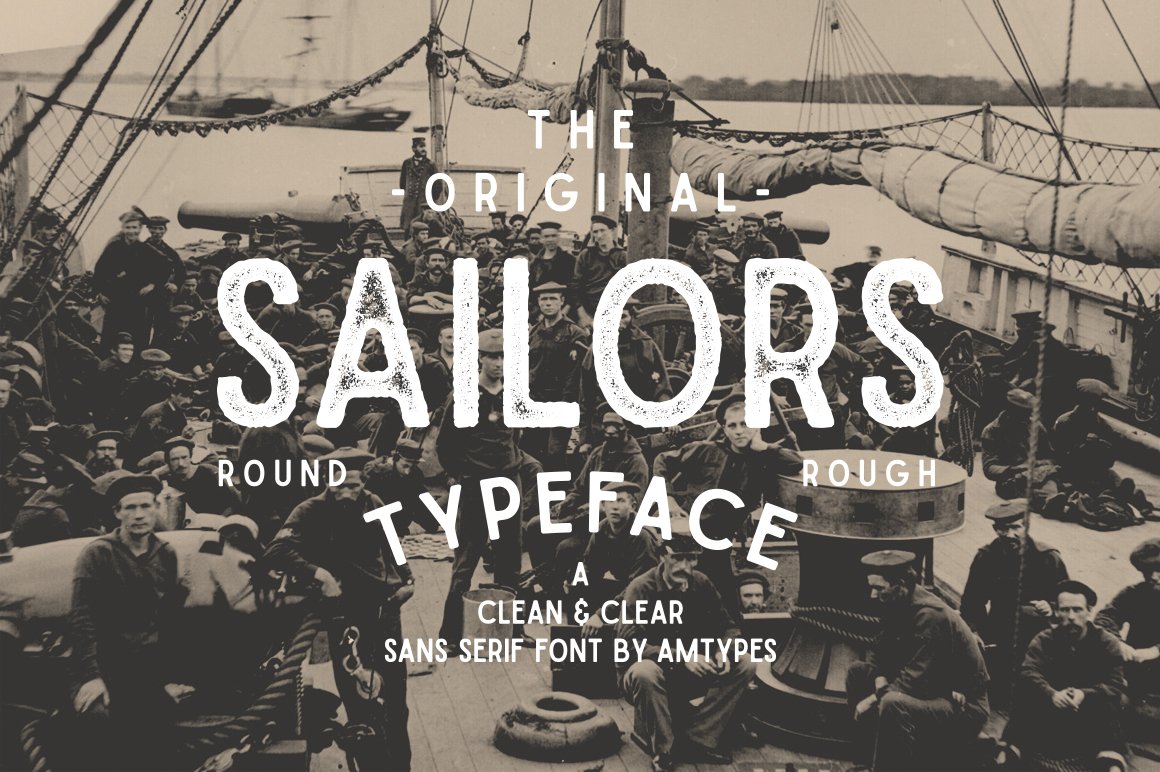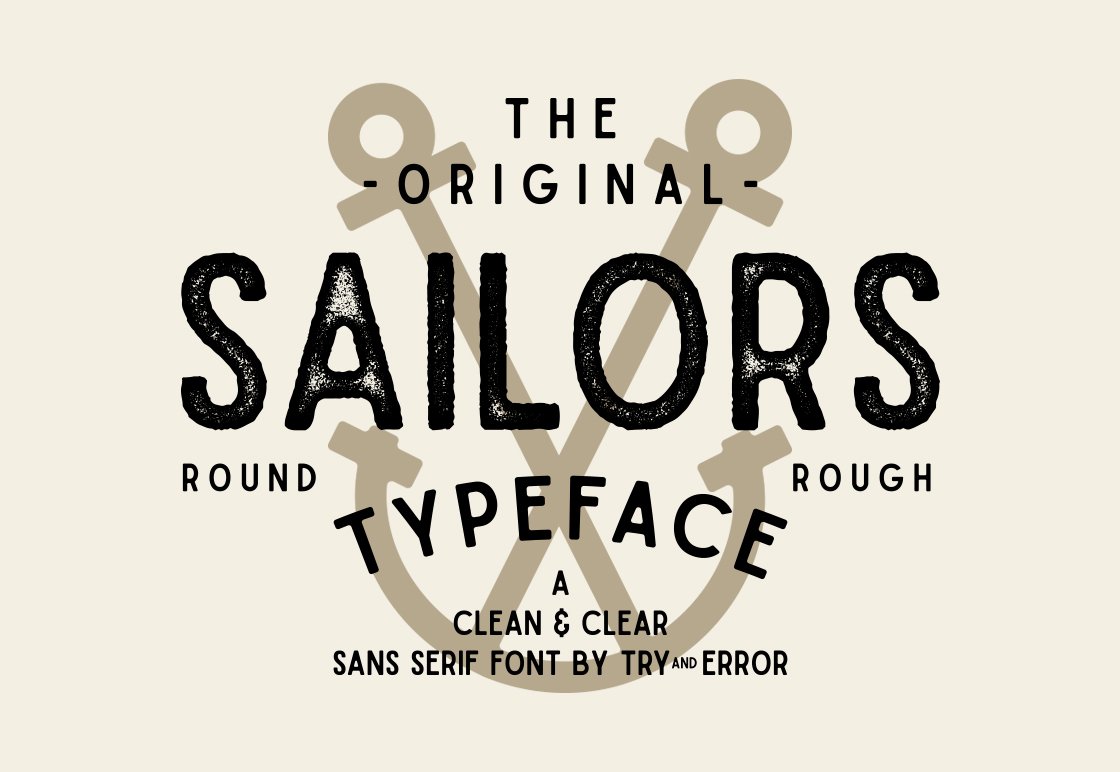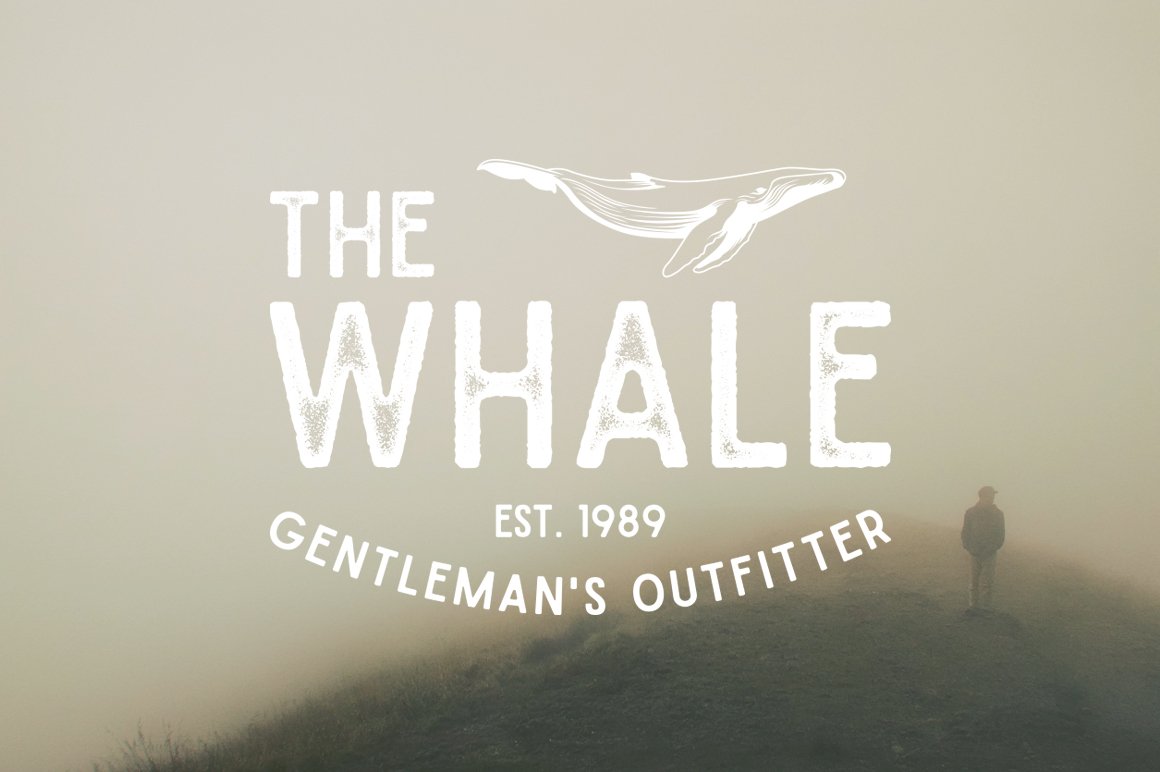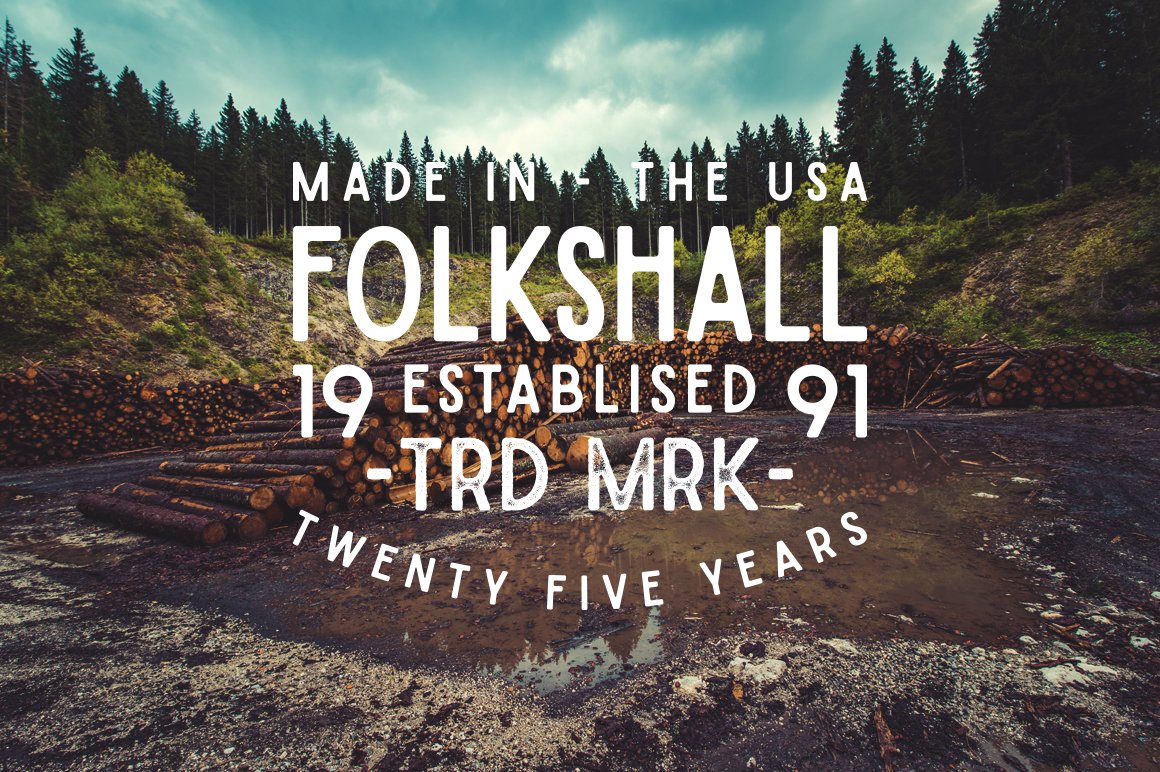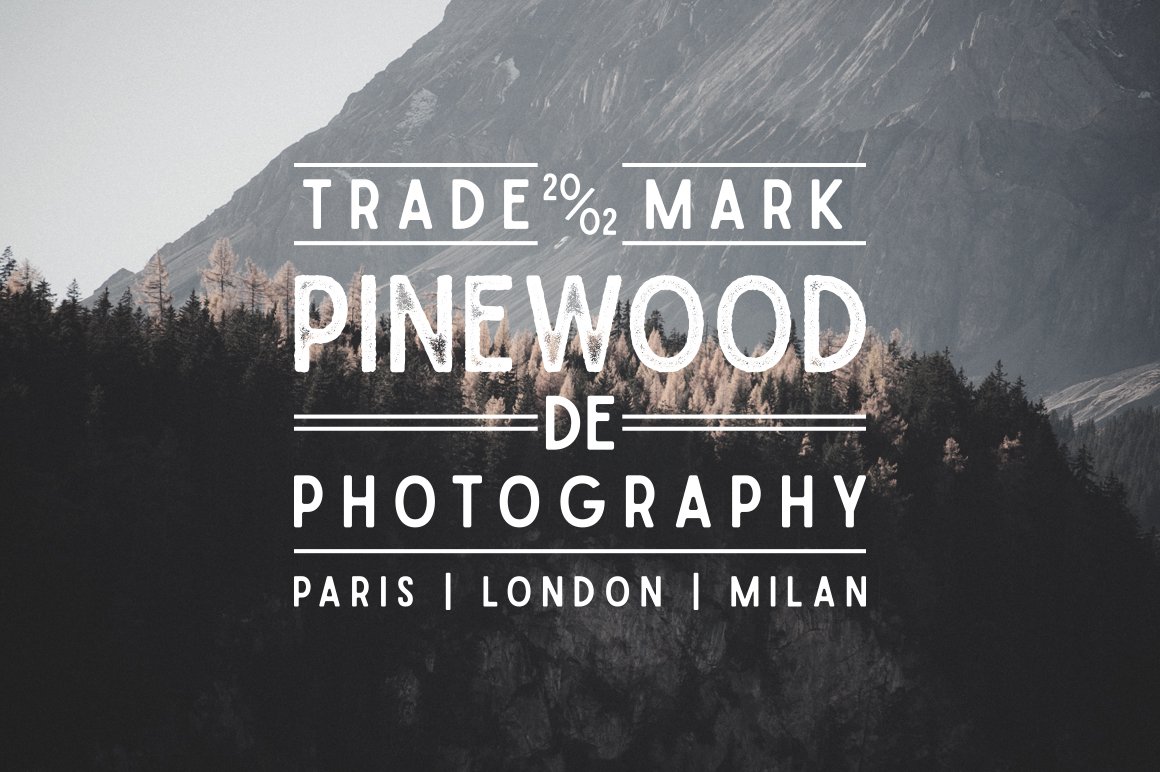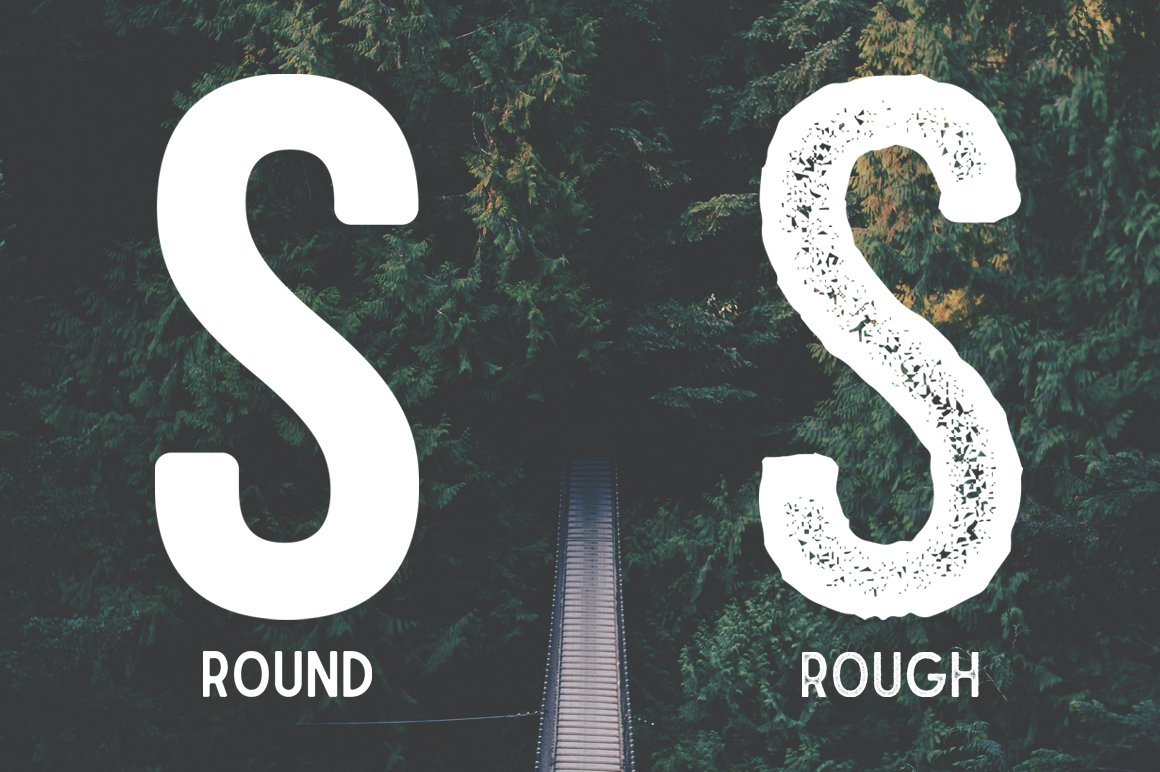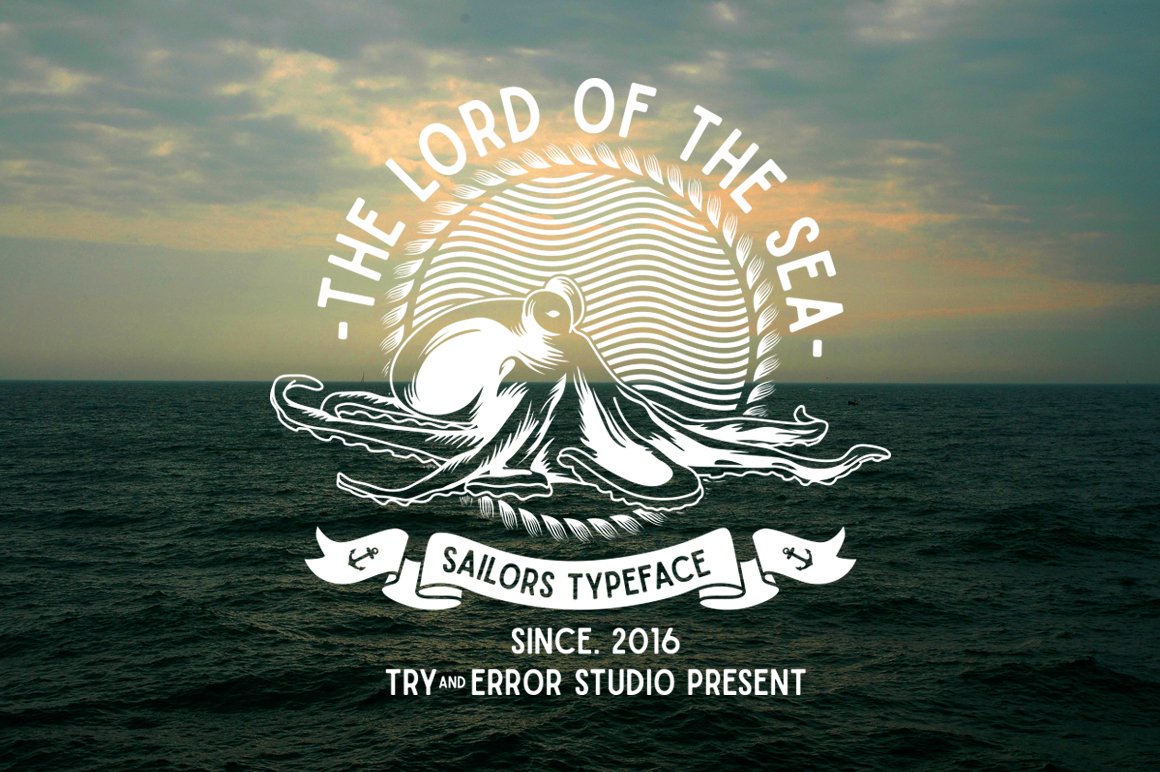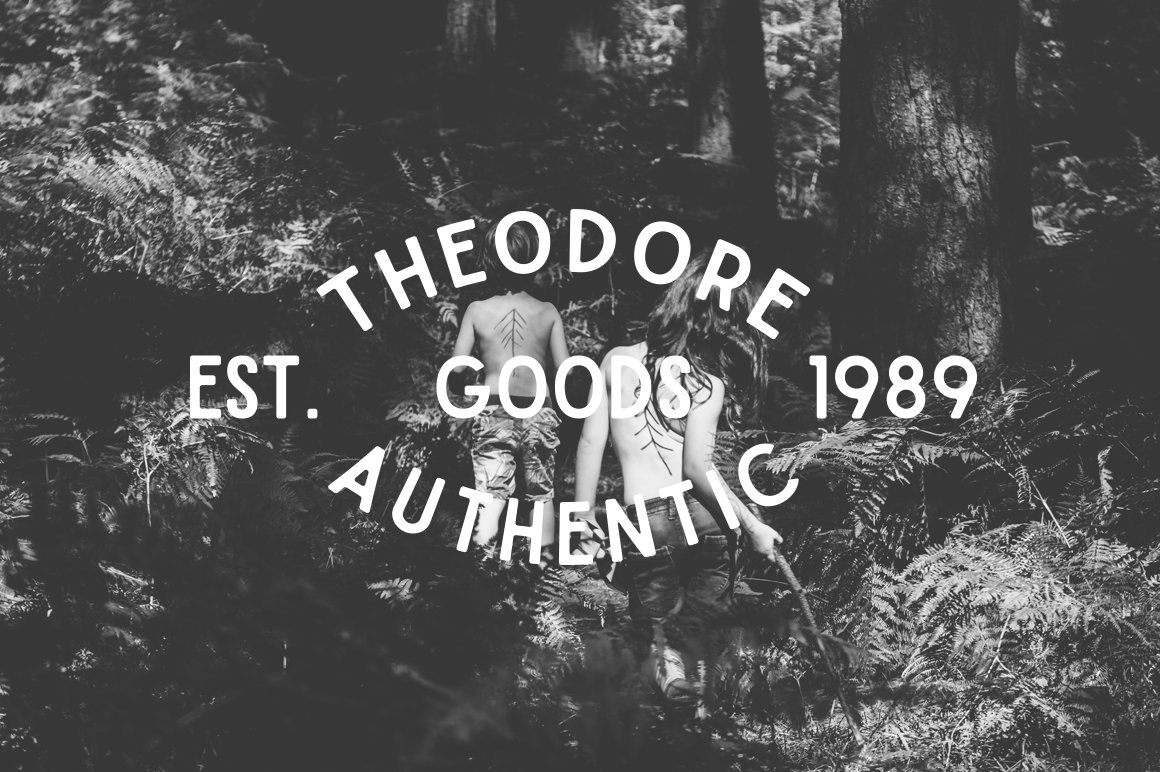
Sailors
Sailors is a clean and clear sans serif typeface with 5 styles fonts. Sailors perfect for branding, labeling, vintage designing, and more. It includes uppercase standard character, punctuation and multiple language support.